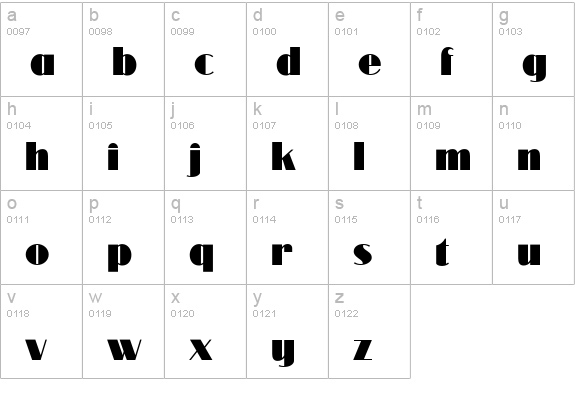
CgModernique Font Details
CgModernique is a sleek and sophisticated font that exudes modern elegance. Its clean lines and stylish curves make it perfect for adding a touch of contemporary flair to any design project. Whether you're creating a chic logo, a trendy poster, or a stylish branding package, CgModernique is sure to elevate your work to the next level. The best part? CgModernique is completely free to download at FontsMarket.com. This means you can access this gorgeous font without having to spend a penny. So go ahead and enhance your projects with the beauty and versatility of CgModernique today!